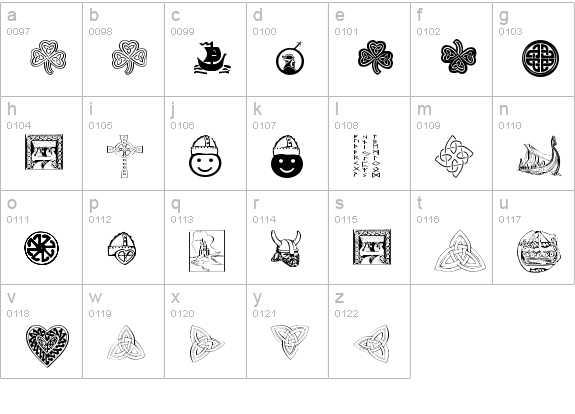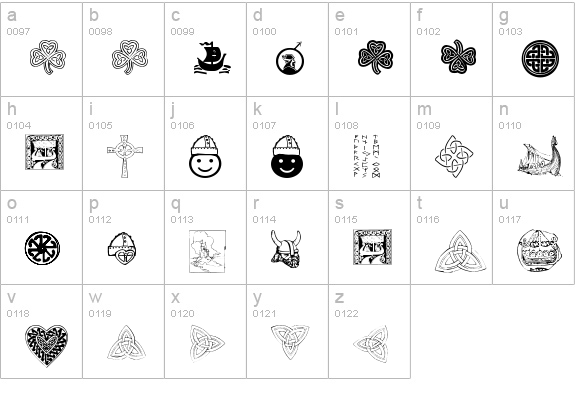
YY Norseman Dingbats Font Details
The YY Norseman Dingbats font is a unique and intricate typeface that features a collection of decorative and symbolic elements inspired by Norse mythology and Viking culture. This font is perfect for adding a touch of mystique and ancient charm to your design projects. The intricate details of the dingbats make them ideal for embellishing headers, banners, and other graphical elements. Best of all, the YY Norseman Dingbats font is freely available to download at FontsMarket.com. Whether you are working on a historical project, creating fantasy-themed designs, or simply looking to add a touch of character to your work, this font is a versatile and eye-catching choice. Download the YY Norseman Dingbats font today and bring a touch of Norse magic to your designs!